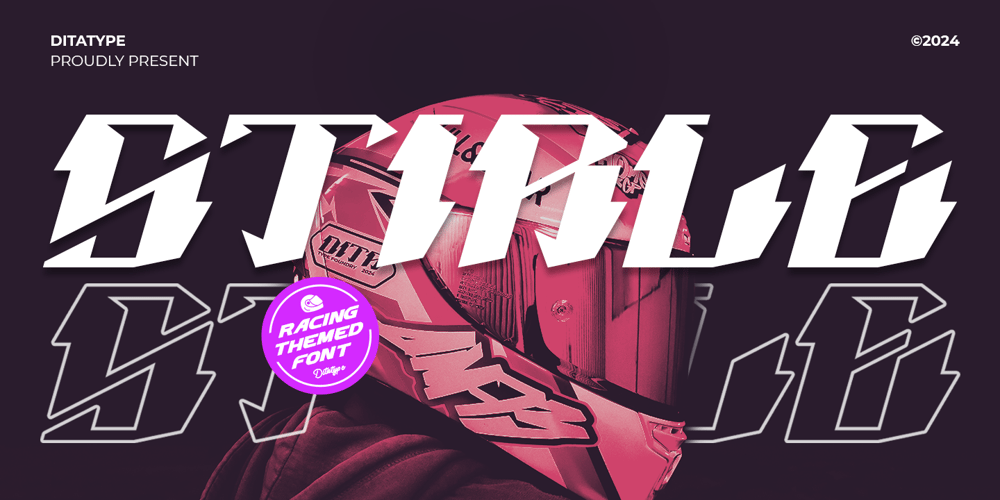
Stirle Font Family was designed by Donis Miftahudin and published by Ditatype. Stirle contains 1 styles and family package options. Introducing Stirle-a bold display font inspired by the thrill and speed of racing. With its strong, impactful weight and consistent proportions, Stirle commands attention and adds a dynamic edge to any design. The unique, irregular outlines give the font an energetic, rugged feel, making it perfect for projects that need a touch of adrenaline. For optimal readability and to showcase its striking details, Stirle is best used in large sizes. In addition, enjoy the features here.Features: Multilingual Supports PUA Encoded Numerals and Punctuations Stirle fits in logos, posters, flyers, branding materials, print media, editorial layouts, and many more designs. Find out more ways to use this font by taking a look at the font preview.Thanks for purchasing our fonts. Hopefully, you have a great time using our font. Feel free to contact us anytime for further information or when you have trouble with the font. Thanks a lot and happy designing.